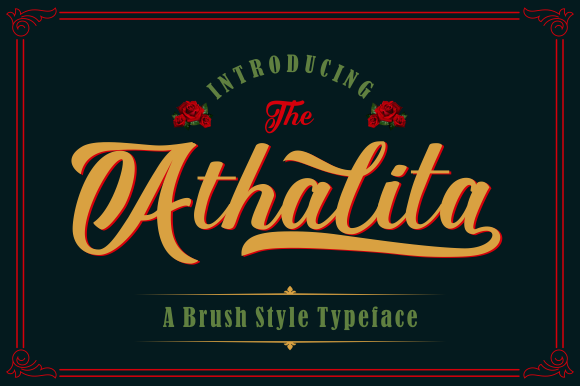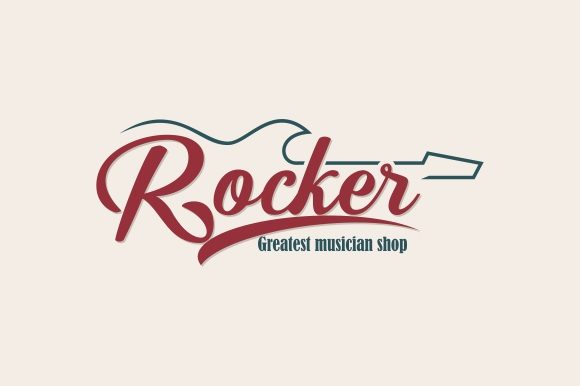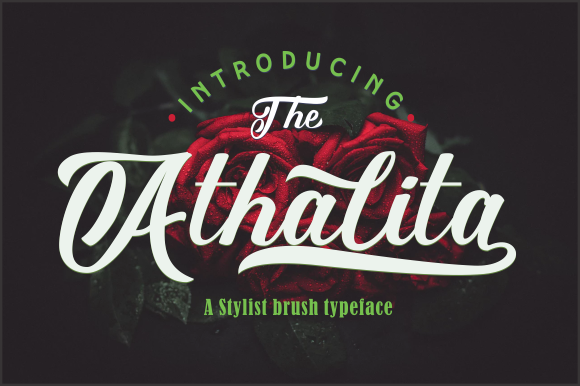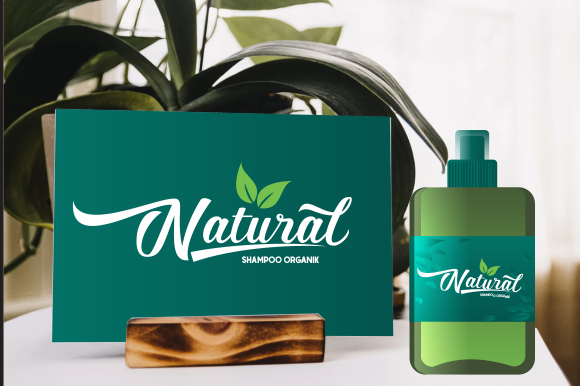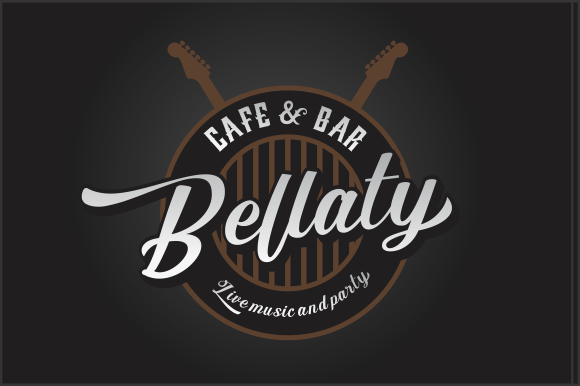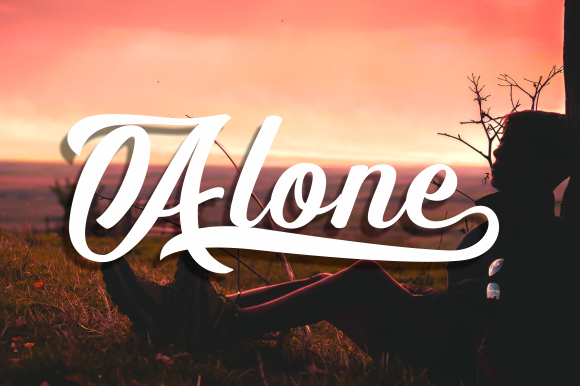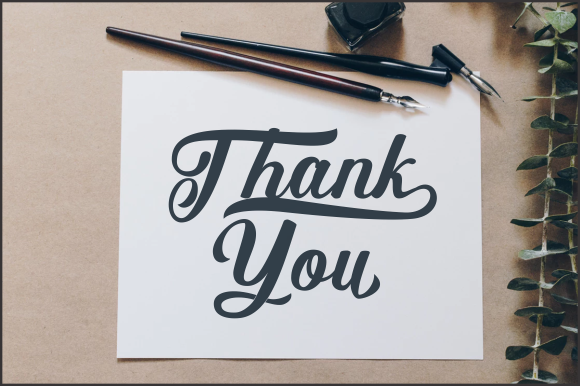
Athalita Font
About Athalita Font
Introducing “The Athalita,” a brush typeface that combines a classy and charming look with a timeless feel. This font is not just a typeface; it’s a design asset that brings a touch of sophistication to your creative projects.
The brush typeface of “The Athalita” is characterized by its elegant strokes and charming aesthetics. The classy appearance adds a refined quality to your designs, making it well-suited for various applications where a touch of sophistication is desired.
Whether you’re working on branding, invitations, posters, or any project that calls for a stylish and timeless font, “The Athalita” delivers with its unique blend of charm and class. The brush strokes add a dynamic and expressive element to the characters, enhancing the overall visual appeal.
Its versatility allows “The Athalita” to adapt seamlessly to different design contexts. In branding, the font establishes a classy and memorable visual identity. For invitations, the charming look adds a touch of elegance to special events. Posters benefit from the timeless feel, creating designs that withstand trends and remain visually appealing.
In summary, “The Athalita” is more than just a font; it’s a design companion that brings a brush typeface with a classy and charming look to your creative projects. Embrace its timeless feel for branding, invitations, posters, and more, and let “The Athalita” add a touch of sophistication to your designs.